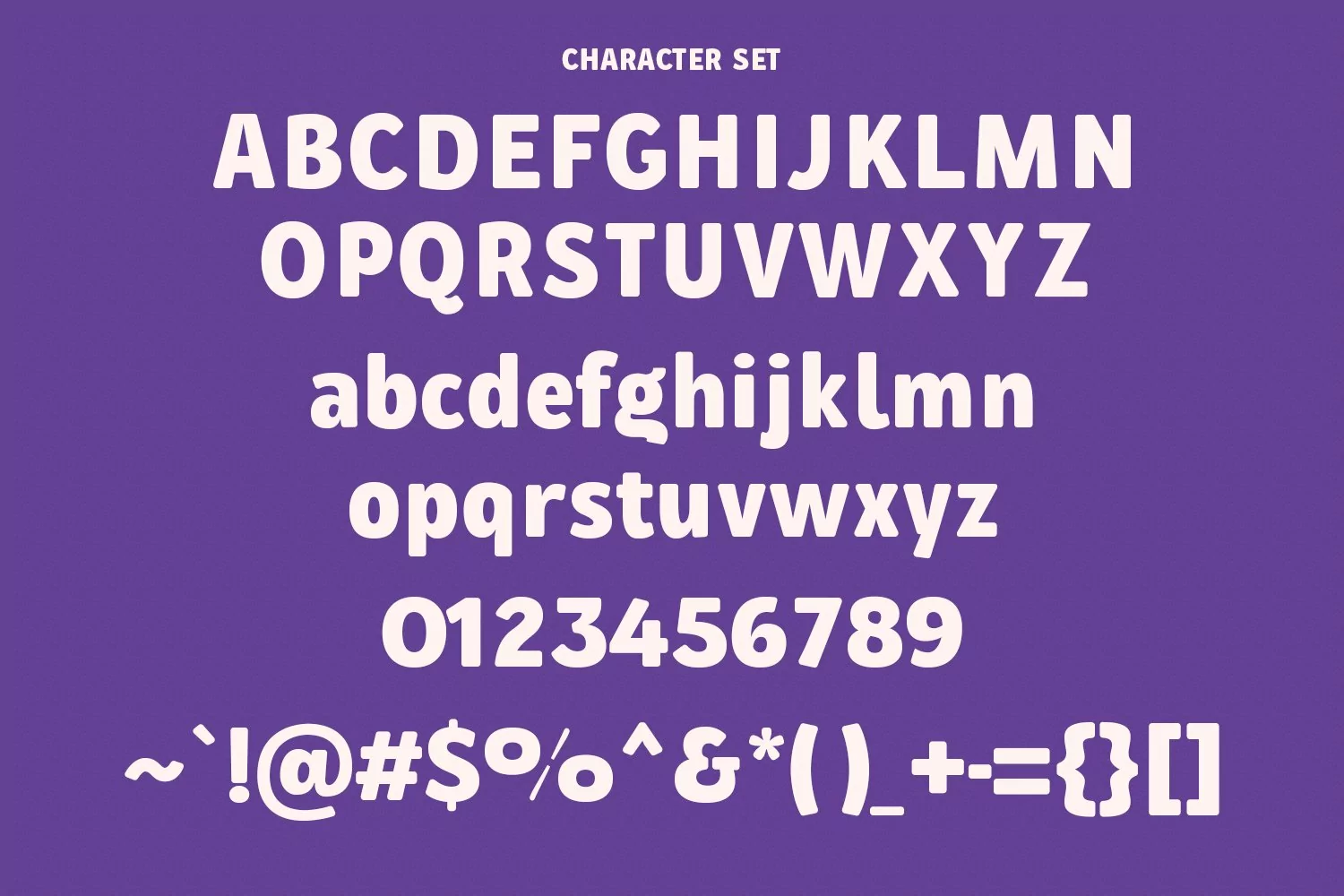
Lonzies is a simply semi-geometric sans serif font. With soft rounded stroke, fun character with a bit of ligatures and alternates. To give you an extra creative work. Lonzies font support multilingual more than 100+ language. This font is good for logo design, Social media, Movie Titles, Books Titles, a short text even a long text letter and good for your secondary text font with sans or serif. Make a stunning work with Lonzies font.